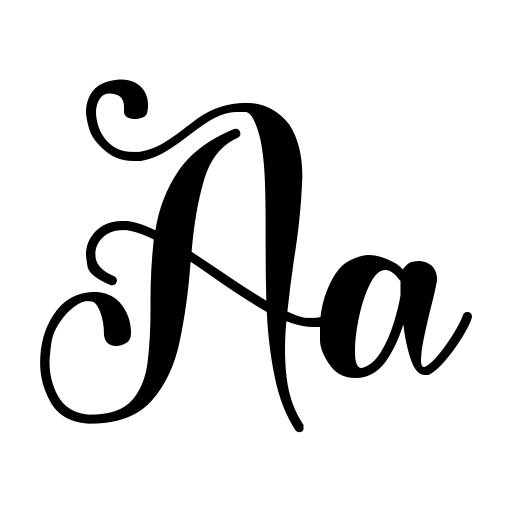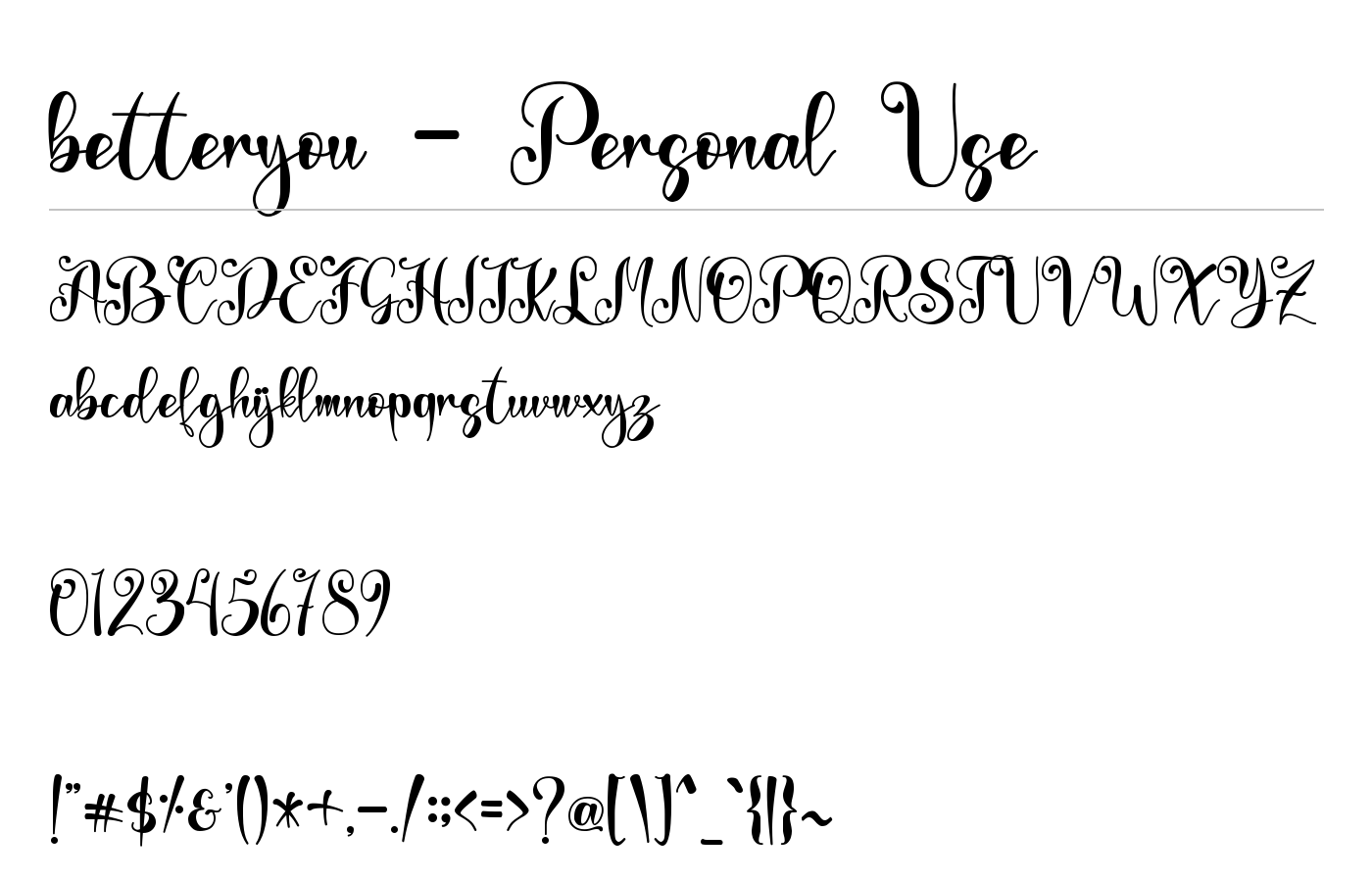
Betteryou is a charming script font with elegant, flowing letterforms and playful swirls that give it a handcrafted, feminine feel. Its medium weight and graceful curves make it perfect for personal projects, wedding invitations, branding, and any design needing a touch of warmth and sophistication. This font adds a stylish, delicate personality that works well in headlines and decorative text rather than long body copy.
betteryou - Personal Use Font
About betteryou - Personal Use Font
| Designer | Ahmad Afandi |